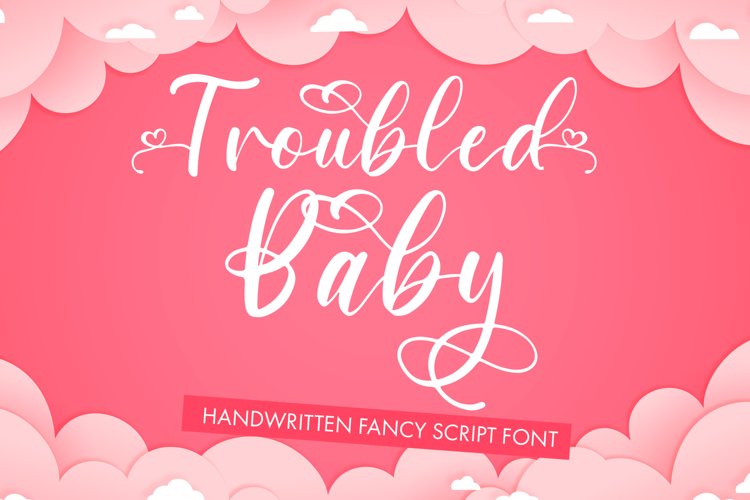
Troubled Baby - Fancy Script Font
Troubled Baby is a handwritten script font with fancy flourished stylistic alternates. You will also get a heart swirl in the beginning and at the end of each letter, both upper cases and lower cases. This font will be perfect to use for all your upcoming Wedding DIY:s or other quote based DIY:s or anything Valentine's themed.
Troubled Baby can be used for anything such as T-Shirt designs, phone cases, greeting cards, invitations, mugs and so much more! Be creative but most importantly have fun!
- Troubled Baby - Comes with Uppercase A-Z and lowercase a-z letters, 0-9 numbers, stylistic alternates, limited punctuation and supports Western European Languages